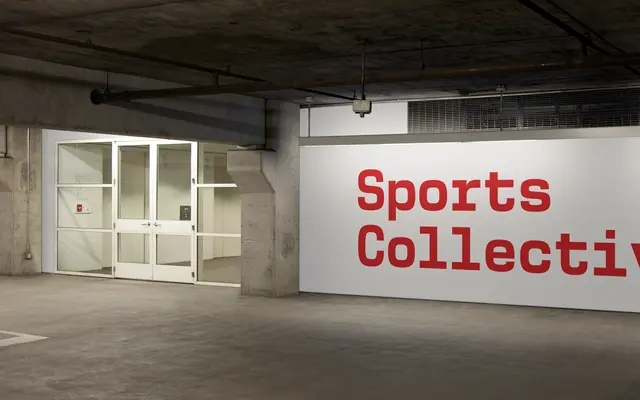
New Science Mono
A monospaced member of the New Science family, built on square letterforms that recall Eurostile with a more contemporary finish.
Part of Newlyn's New Science collection alongside extended and serif variants, this monospaced cut applies the family's square-shaped construction to a fixed-width format suited to technical and branding contexts. Six weights run from Thin to Bold, offering range for both display and text-size use. The proportions and stroke weights have been adjusted from its Eurostile lineage to produce something cleaner and more current.
A monospaced variant within the New Science family, built on square-shaped letterforms inspired by Eurostile. Its fixed-width construction and geometric, high-tech aesthetic place it firmly in the geometric mono category.